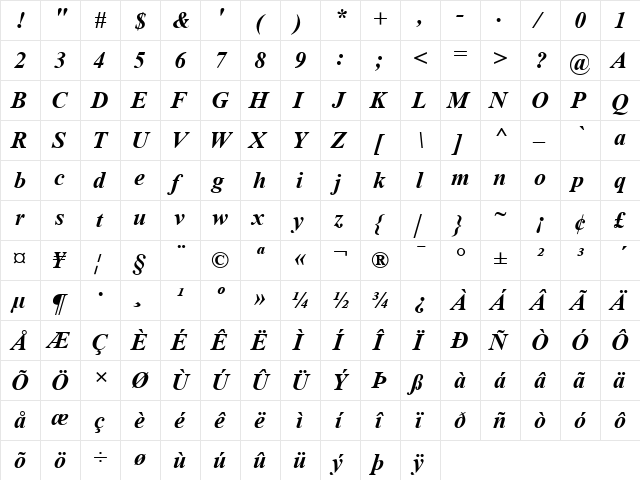
Times New Roman PS MT Regular Font Preview
Times New Roman PS MT Regular
Design Context for Times New Roman PS MT Typeface
Times New Roman PS MT is a composed and adaptable typeface that performs quietly and consistently across a wide range of design contexts.